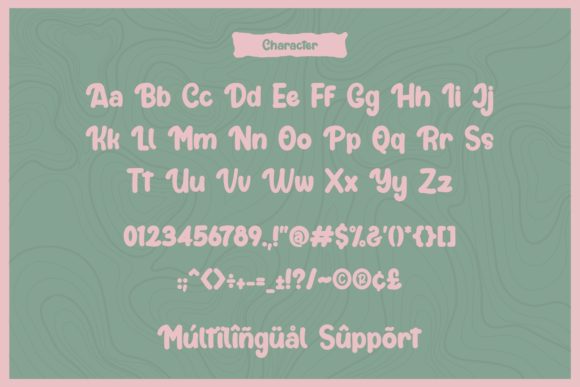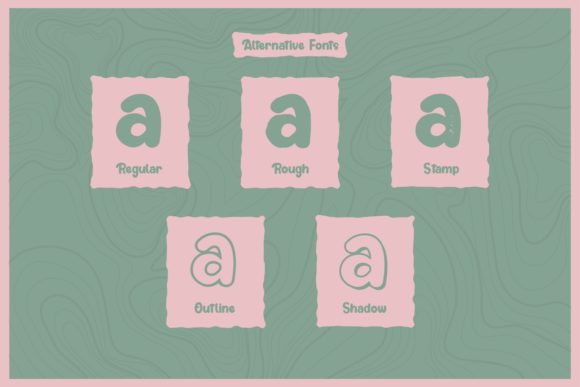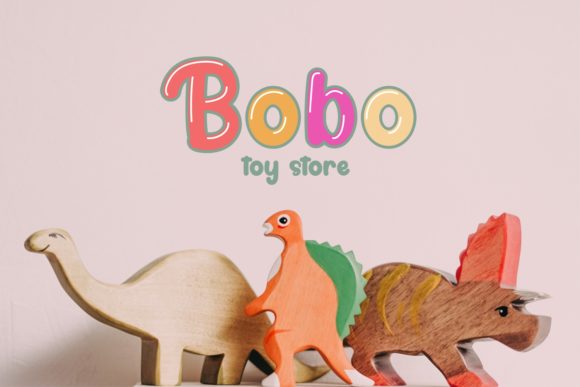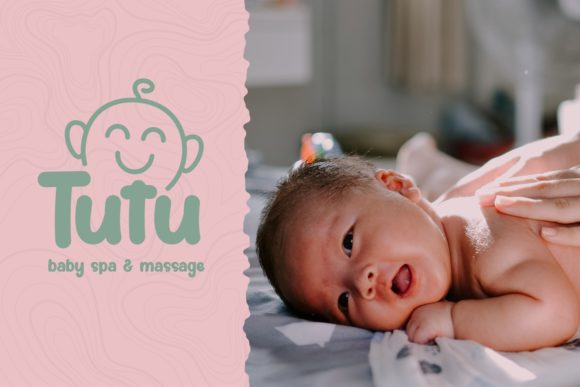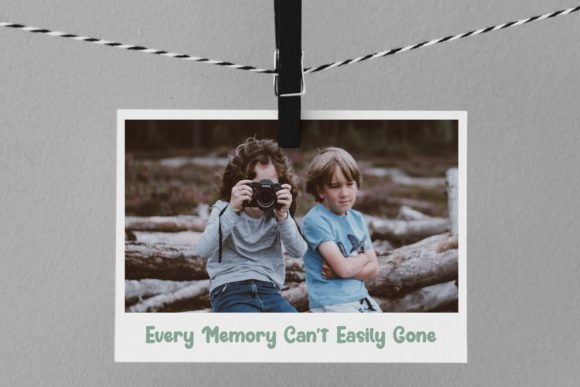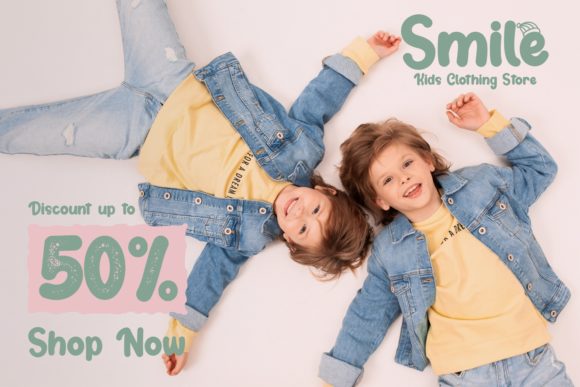
The Joy of Dalbys Font: A Designer’s New Best Friend
I’ll never forget the time I was working on a project for a client’s birthday party invitation. I had the design concept nailed, but something was missing – the perfect font. I scrolled through my font library, but nothing seemed quite right. That’s when I stumbled upon Dalbys Font, and it was love at first sight! 💕
Dalbys is a thick lettered yet sweet display font that adds an incredibly joyful touch to your designs. Its unique blend of boldness and playfulness makes it perfect for creative projects that need a little extra oomph. In this article, I’ll share my experience with Dalbys Font, its features, and how to make the most of it in your designs.
An Honest Review of Dalbys Font
What I Love About Dalbys Font ✨
- 💥 **Unique character**: Dalbys Font has a distinct personality that sets it apart from other display fonts.
- ✅ **Easy to read**: Despite its boldness, Dalbys Font is surprisingly easy to read, even in smaller sizes.
- 🎉 **Versatile**: Dalbys Font is perfect for a wide range of projects, from party invitations to social media graphics.
- 💕 **Aesthetically pleasing**: The font’s sweet and playful vibe makes it a joy to work with.
While Dalbys Font is an amazing addition to any design project, there are a few things to keep in mind:
- ⚠️ **Limited use in body text**: Due to its boldness, Dalbys Font might not be the best choice for lengthy body text.
- ⚠️ **Requires attention to spacing**: To get the most out of Dalbys Font, make sure to adjust the spacing between letters and words.
The Story Behind Dalbys Font
Dalbys Font was created by a team of designers who wanted to craft a font that would bring joy and playfulness to designs. Inspired by classic display fonts and modern typography, Dalbys Font is the result of a passion project that quickly gained popularity among designers and crafters.
Q: What type of projects is Dalbys Font best suited for?
Dalbys Font is perfect for creative projects that need a bold, yet playful touch, such as party invitations, social media graphics, and posters.
Q: Is Dalbys Font available in different weights or styles?
Dalbys Font is currently available in a single weight, but its versatility and range of OpenType features make it easy to use in a variety of contexts.